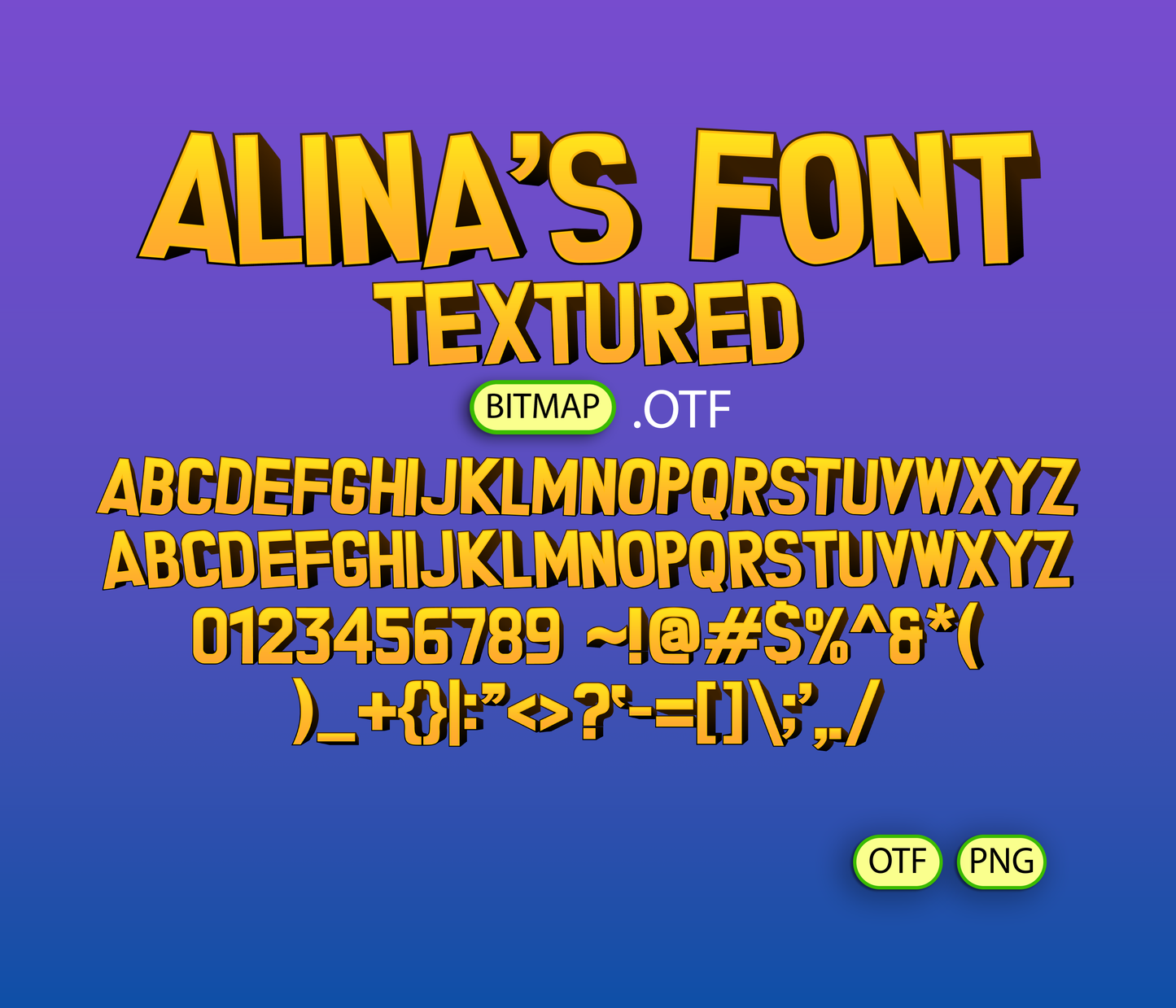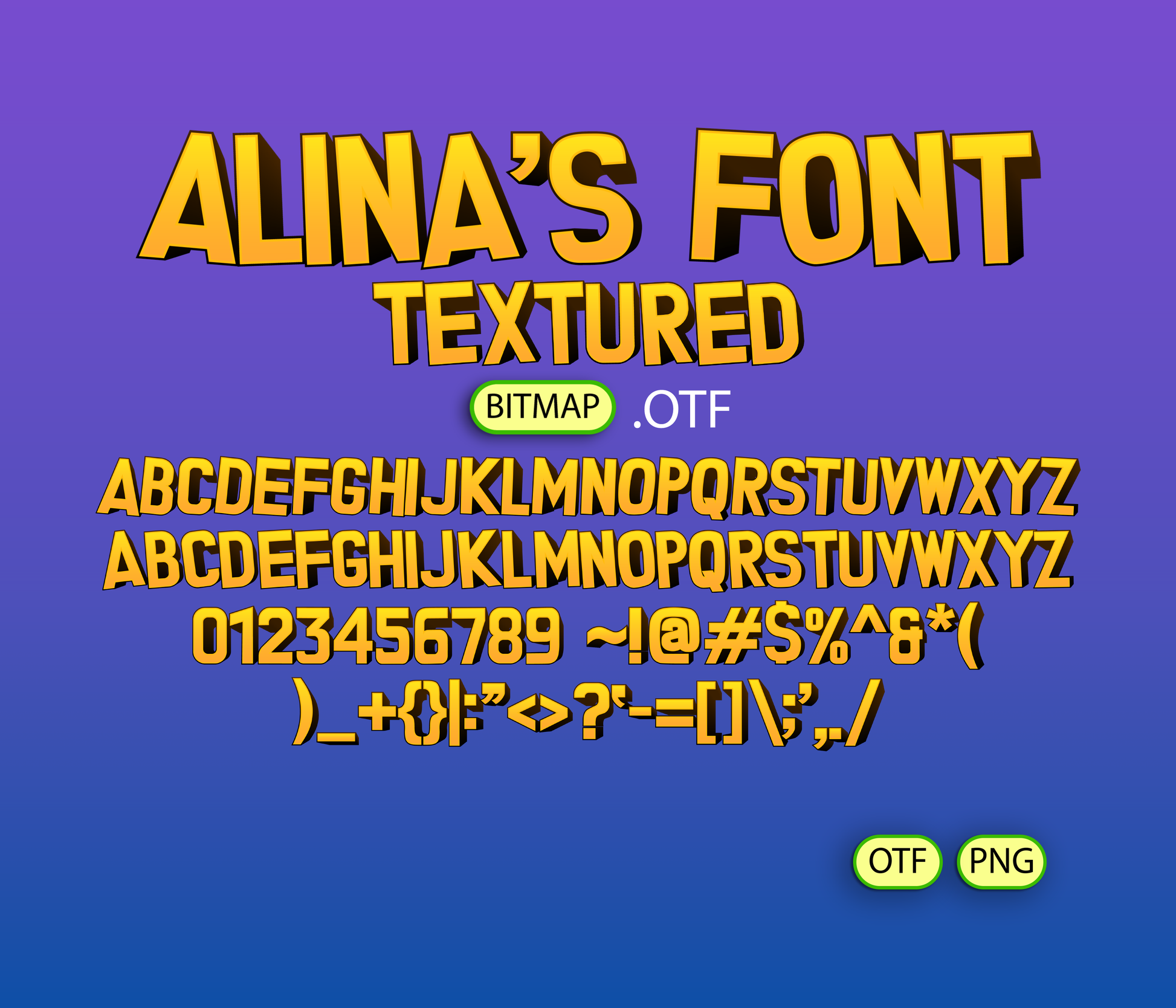
Park Town Font Textured
Add Quirky Charm with the Park Town Colored and Textured Font
Introducing our Park Town-Inspired Colored and Textured Font—a must-have for small shops, DIY enthusiasts, and anyone looking to add a quirky touch to their creations! This textured font is perfect for all Cricut projects, personalized t-shirts, custom cake toppers, unique mugs, and festive birthday invitations.
- Iconic Style: Inspired by the unique visuals and irreverent humor of popular animated shows, our textured font is instantly recognizable.